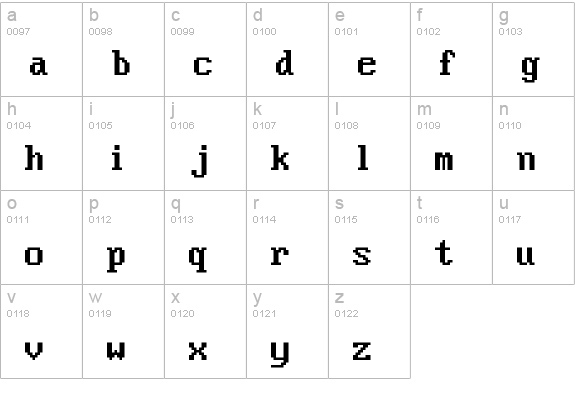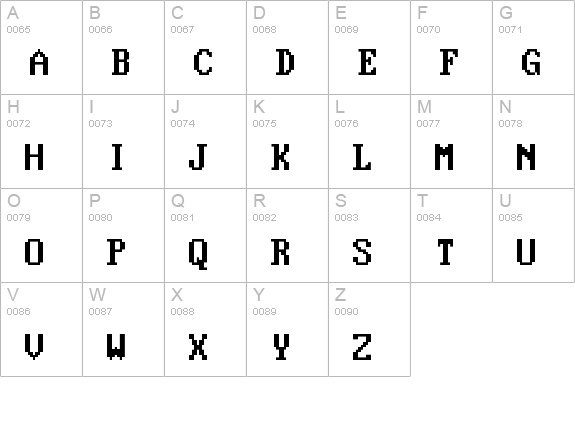
VideoTerminalSc Font Details
VideoTerminalSc is a sleek and modern font that brings a touch of futuristic sophistication to any design project. With its clean lines and sharp edges, this font is perfect for creating a sleek and professional look. Whether you're designing a website, poster, or logo, VideoTerminalSc will give your project a cutting-edge feel. What sets VideoTerminalSc apart from other fonts is its versatility. It is a truly multipurpose font that can be used for a wide range of design applications. From tech startups to gaming websites, this font is suitable for any project that requires a contemporary and dynamic look. One of the best things about VideoTerminalSc is that it is freely available to download at FontsMarket.com. This means that you can enjoy all the benefits of this amazing font without having to spend a dime. Simply visit FontsMarket.com and download VideoTerminalSc to start using it in your designs today. Not only is VideoTerminalSc free, but it also comes with a wide range of characters and symbols. This font includes both uppercase and lowercase letters, as well as numbers and punctuation marks. Additionally, it features special characters and symbols that can add a unique touch to your designs. With VideoTerminalSc, you can create eye-catching headlines, captivating logos, and engaging website headers. Its bold and modern aesthetic will instantly grab the attention of your audience and make a lasting impression. Whether you're designing for print or digital, VideoTerminalSc is the perfect font to make your project stand out. So why wait? Head over to FontsMarket.com and download VideoTerminalSc today. With its sleek design, versatility, and the fact that it's freely available, this font is a must-have for any designer looking to elevate their work to the next level. Try VideoTerminalSc now and see the difference it can make in your designs.